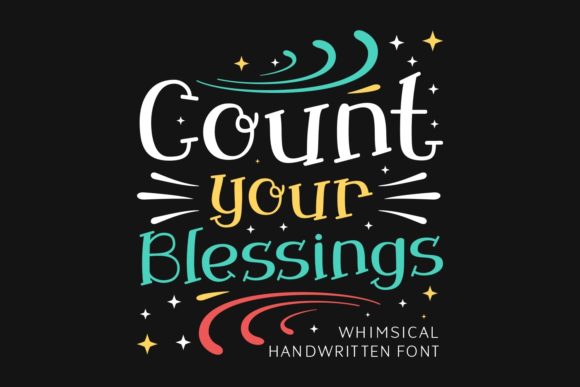
**Count Your Blessings Font: The Handwritten Masterpiece That Will Captivate Your Senses**
In a world craving authenticity and charm, Count Your Blessings Font emerges as a radiant beacon of handwritten artistry. Its graceful strokes, reminiscent of a skilled calligrapher's touch, dance across the page, evoking a sense of timeless elegance and heartfelt emotion.
**Unleash Your Creativity with Endless Applications:**
- Elevate your digital designs with Count Your Blessings Font's enchanting allure, crafting logos, social media graphics, and website elements that radiate warmth and personality.
- Transform your physical creations into masterpieces with this font's compatibility with cutting machines. Create personalized greeting cards, scrapbook layouts, and home décor items that speak volumes about your artistic flair.
**A Font that Speaks to the Heart:**
Count Your Blessings Font carries an emotional weight that resonates with audiences of all ages. Its whimsical nature adds a touch of delight to children's stories and illustrations, while its sophisticated charm lends a touch of grace to wedding invitations and love letters.
**A Perfect Fit for Any Project:**
Whether you're a seasoned designer seeking to expand your font library or a creative enthusiast looking to add a personal touch to your projects, Count Your Blessings Font is your perfect companion. Its versatility knows no bounds, effortlessly adapting to a myriad of design styles and themes.
**Experience the Count Your Blessings Font Difference:**
With Count Your Blessings Font, you'll discover a world of boundless creativity, where your ideas take flight and your designs come to life with captivating beauty.